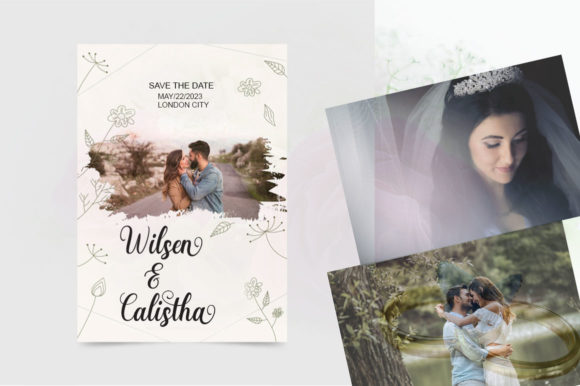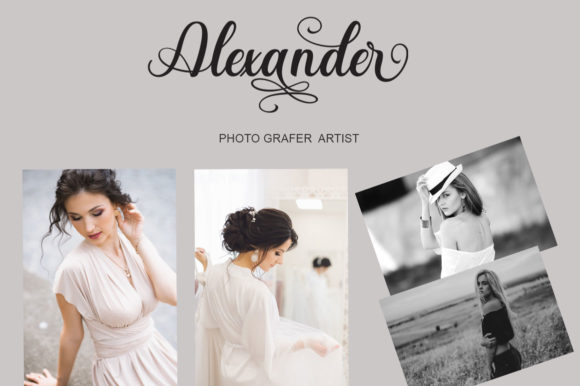
Beautiful Font
db-ku.com - Script & Handwritten -- Beautiful is a delicate, elegant and flowing handwritten font. It has beautiful and well balanced characters and as a result, it matches a wide pool of designs.